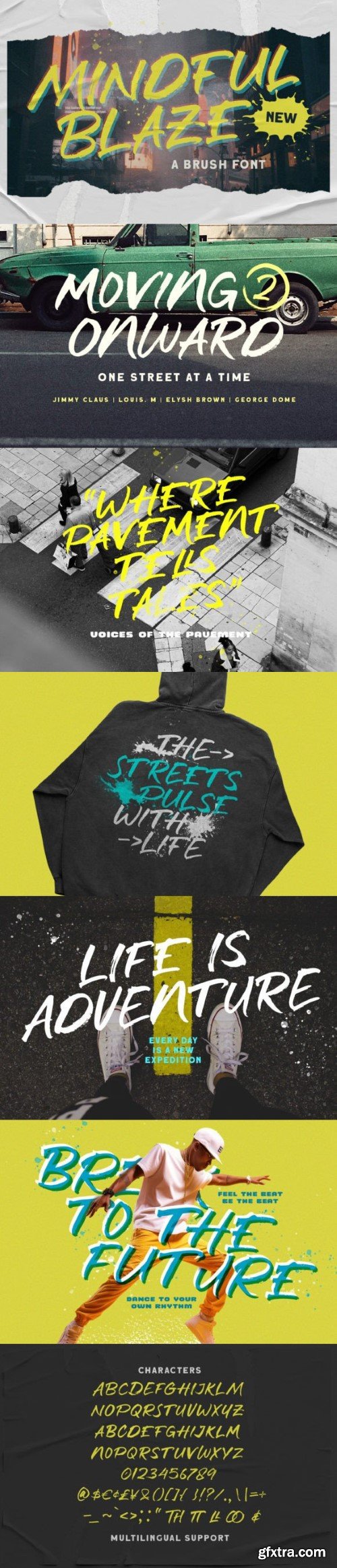
mindful braze font
Mindful Braze is a freestyle brush font, It’s organic and hand-drawn appearance adds a touch authenticity to your designs, making it a perfect choice for projects that seek to stand out with the stroke and creative statement.